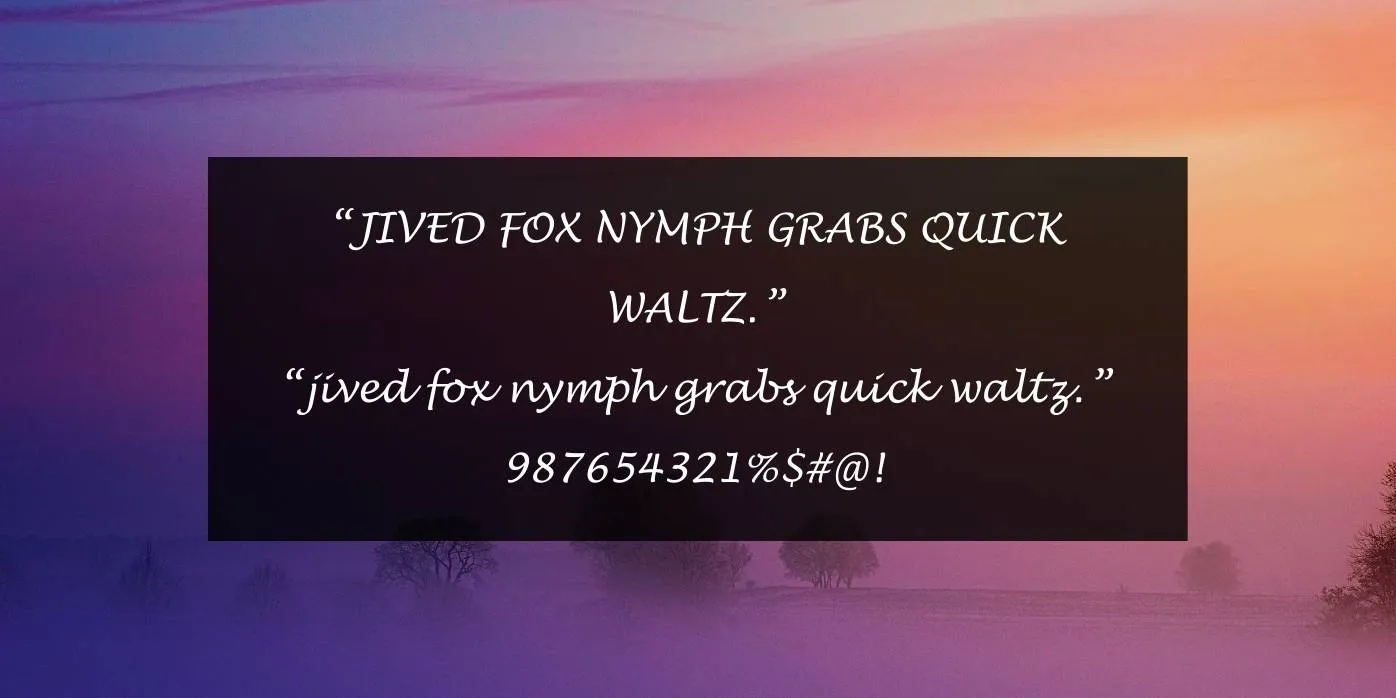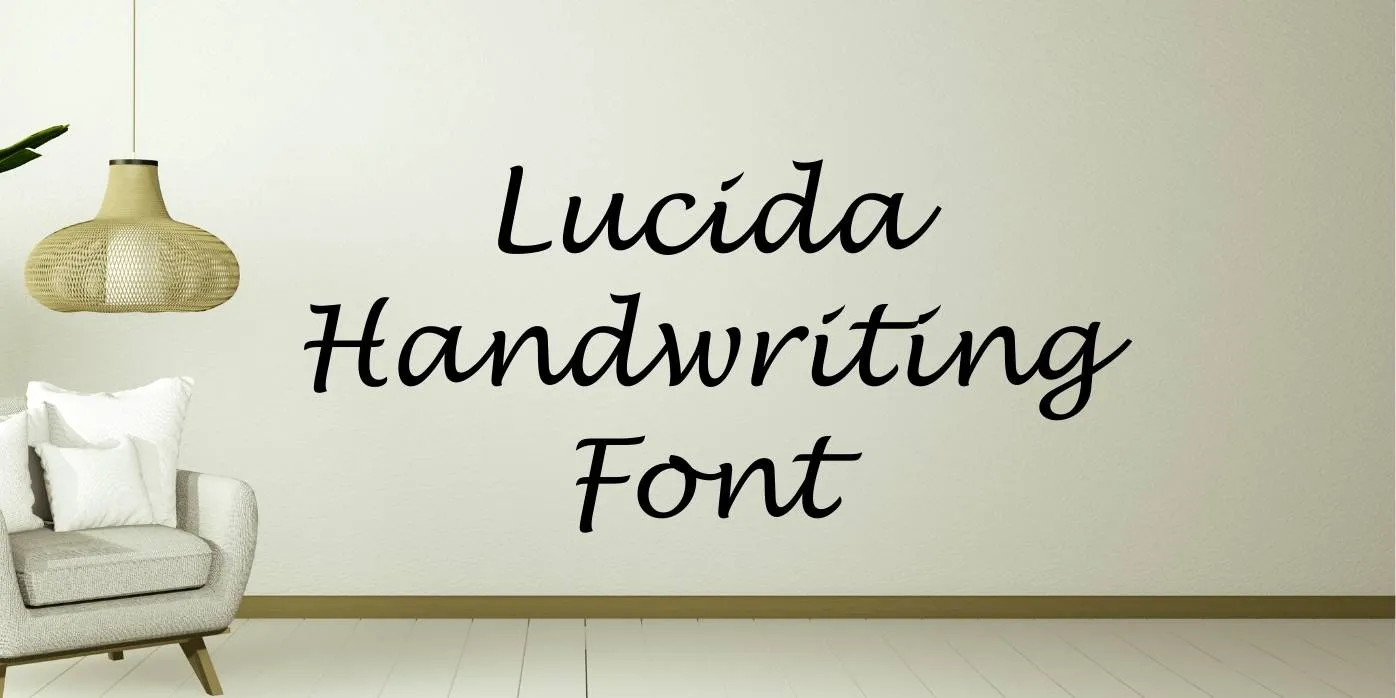
Lucida Handwriting Font
Lucida Handwriting Font is a famous typeface that was designed by Charles Bigelow. This family belongs to the handwritten family. The letters in this font have a natural flow, which makes them easy to read. The classy font was released in 1992 and has since been used by many people.